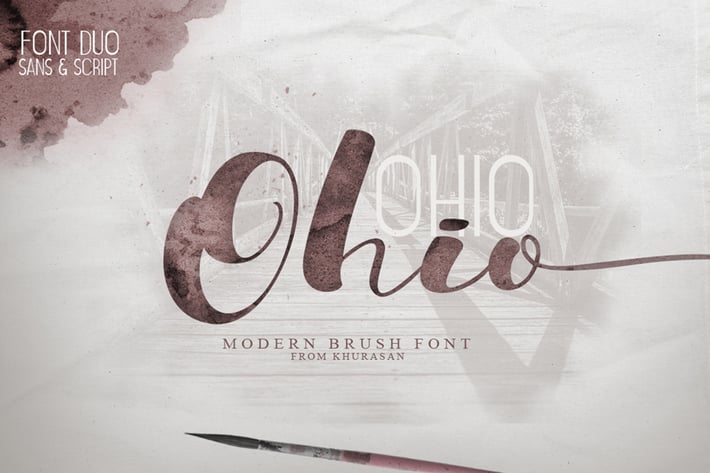
Ohio Font Duo
Introducing the Ohio Font Duo, a handwriting script and sans nice font type. Ohio Font Duo it’s perfect for namecard, poster, logo, magazine, cover, banner, tshirt and headers, or even large-scale artwork..